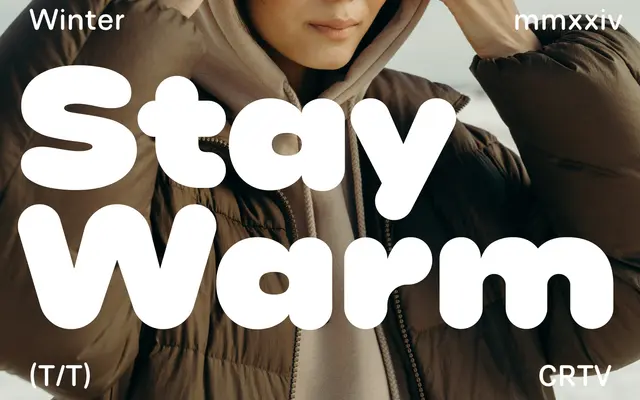
Phluff Variable Family
A rounded variable sans in six weights, designed to work from body copy through to display without losing its soft character.
Six weights from Regular to Black are offered as a variable font, allowing precise weight interpolation between the static instances. The rounded terminals give it a friendly, approachable quality suitable for branding work and packaging, while the broader glyph set covers Latin Extended for wider language support. OpenType features include small capitals, stylistic alternates for the lowercase 'a' and 't', alternate numeral sets and a full suite of figure styles.
A contemporary rounded sans-serif with soft terminals throughout; positioned as usable across body and display sizes, aligning it with the rounded grotesque subcategory.